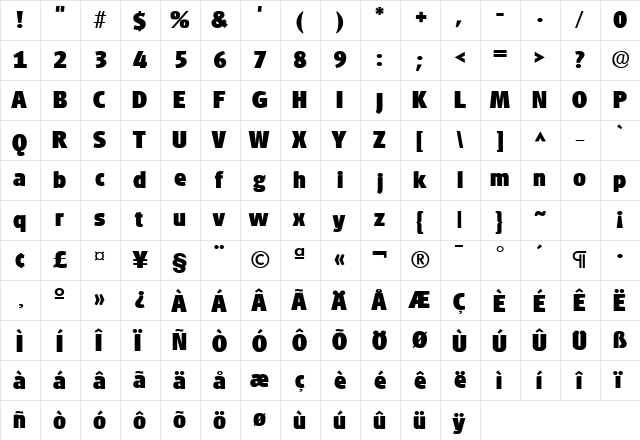
Goudita Sans Heavy SF Bold
Design Context for Goudita Sans Heavy SF Typeface
Goudita Sans Heavy SF is a composed and adaptable typeface that performs quietly and consistently across a wide range of design contexts. Its bold stroke weight gives it real presence on the page.
Pro Tip: Pair Goudita Sans Heavy SF with a font of contrasting weight or personality to build a more expressive typographic hierarchy.